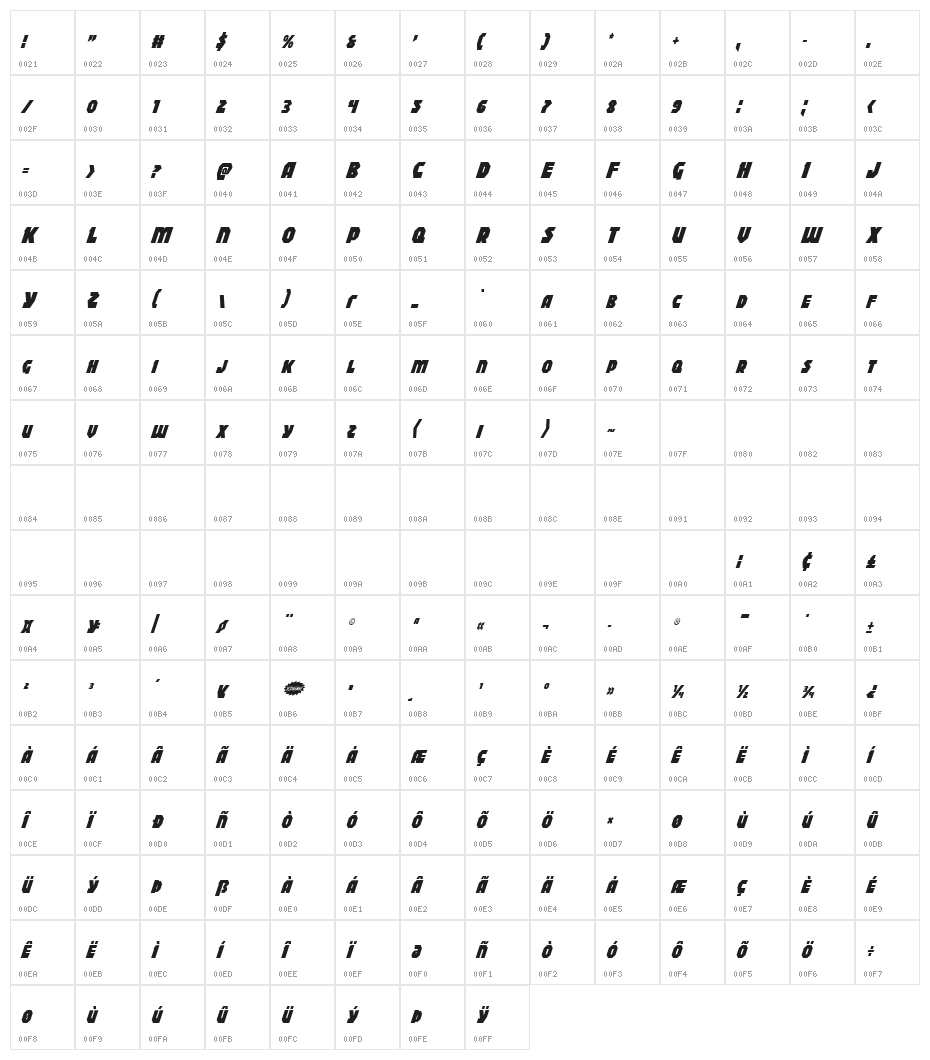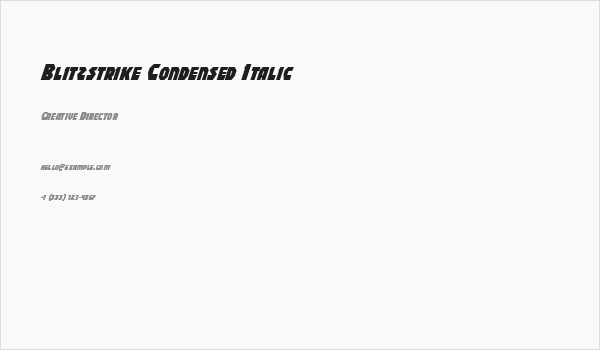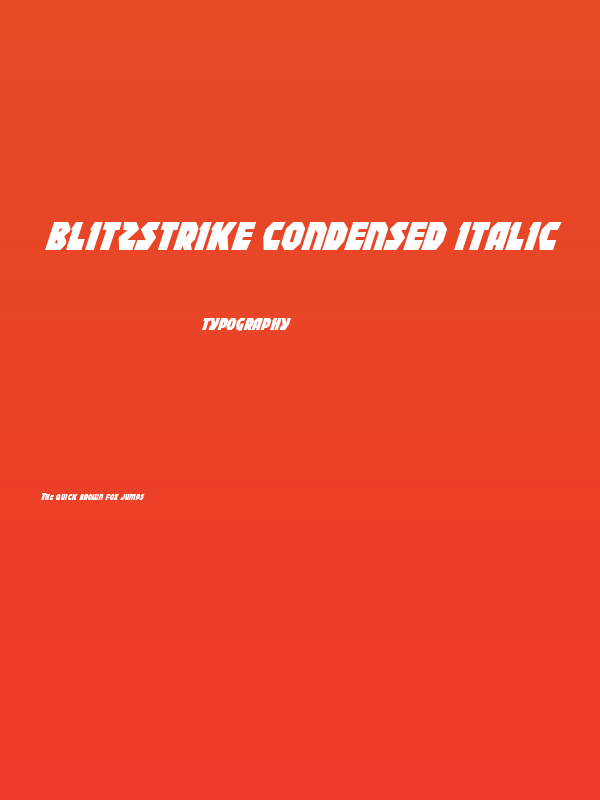
Blitzstrike Condensed Italic Font
Blitzstrike Condensed Italic Description
This font features a bold and dynamic style with a condensed and italicized form. The characters are sharply angled, giving a sense of speed and movement. The uppercase and lowercase letters maintain a consistent slant, enhancing the italic effect. The numbers and special characters follow the same stylistic approach, ensuring uniformity across all glyphs. The overall design is striking and modern, making it suitable for attention-grabbing headlines or branding that requires a strong visual impact.
| Proposed Projects | Ideal for sports branding, action-themed posters, dynamic logos, and video game titles. |